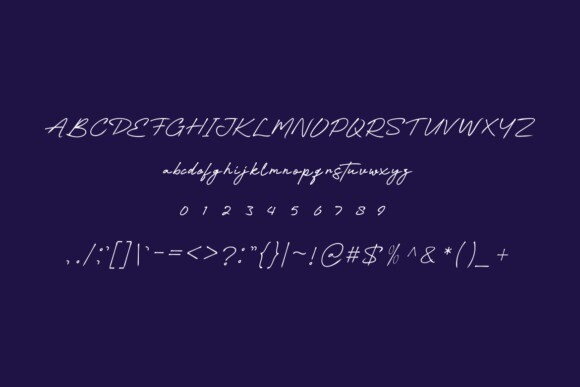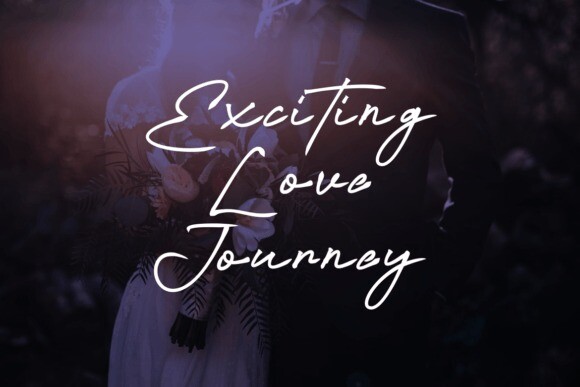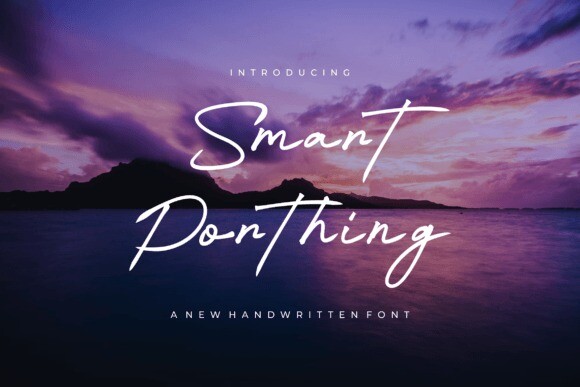
Smart Porthing Font
Designer: artchiles design
Smart Porthing Font is a handwriting font that looks natural and casual. It features smooth, flowing letters that mimic real handwriting, making your text feel personal and friendly. Perfect for invitations, notes, or any project where you want a warm, human touch!